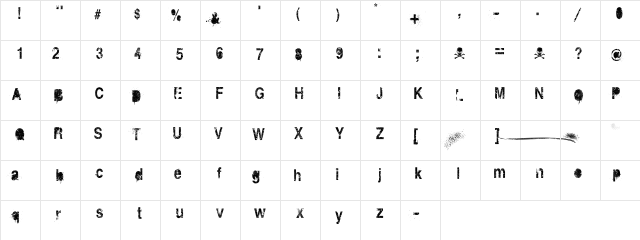
DIRT2 DEATH Font Preview
Design Context for DIRT2 DEATH Typeface
DIRT2 DEATH leans into the macabre with letterforms designed to disturb and intrigue in equal measure.
Perfect for anything that needs to unsettle — game titles, horror branding, and macabre invitations.
Font Pairing: Pair with a clean neutral sans-serif for body copy to let DIRT2 DEATH's character lead without overwhelming the composition.
Pro Tip: Use DIRT2 DEATH at larger display sizes for maximum impact. Consider generous tracking to let the disturbing character of each letterform breathe.